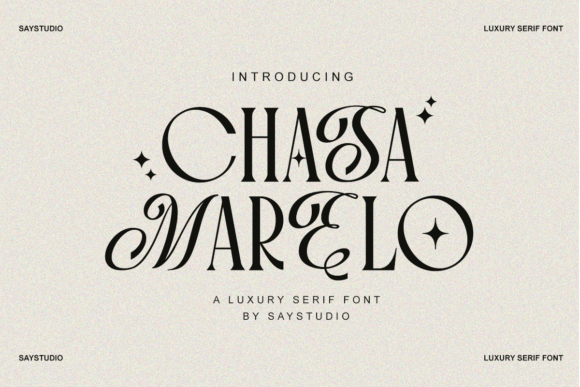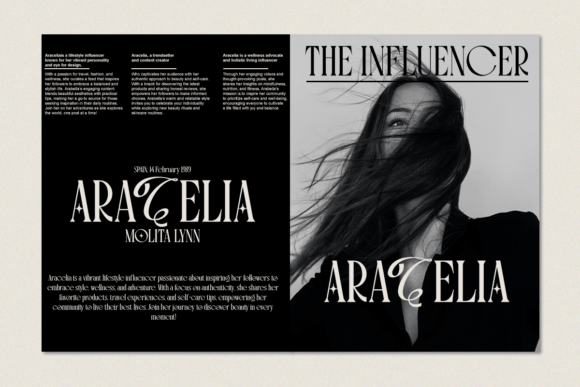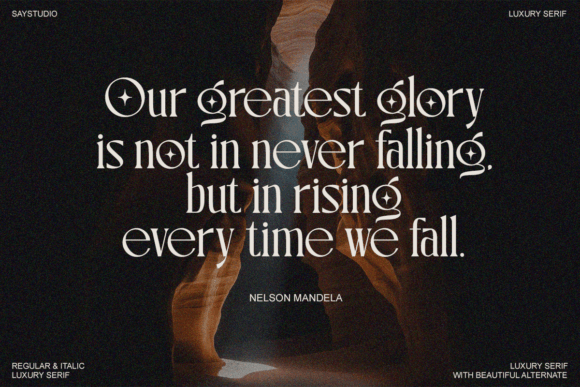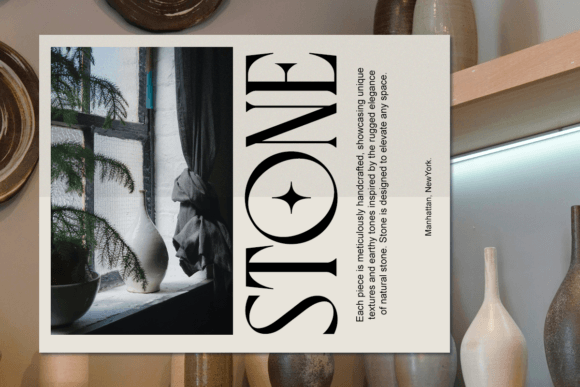
Chasa Marelo Font: Elegant Serif Typography for Luxury Branding
About the Chasa Marelo Font
Let us introduce you to Chasa Marelo Font, where timeless design meets modern craftsmanship. Chasa Marelo is a luxury branding company that focuses on creating elegant and stylish designs. They specialize in serif fonts, which give a classic and sophisticated look to their brands. With attention to detail and a commitment to quality, Chasa Marelo helps businesses stand out and convey a sense of luxury and refinement.
Chasa Marelo Font excels in headline treatments, logos, and short-form text within luxury branding projects. Its elegance shines in invitations, brochures, and packaging design for high-end products. However, its refined serifs are less suitable for body text or UI applications requiring high readability in lengthy passages.
Pairing Chasa Marelo with a clean sans-serif like Helvetica Neue for body copy provides a strong contrast and excellent legibility. For a more playful yet sophisticated feel, consider a script font like Allura for accents. Conversely, pairing it with a geometric sans-serif offers a modern and minimalist approach.
The overall personality of Chasa Marelo is sophisticated and elegant, conveying luxury and a sense of timeless quality. It’s ideal for brands that wish to project an image of refinement and exclusivity.
Chasa Marelo Font Usage Examples
Chasa Marelo Font Example